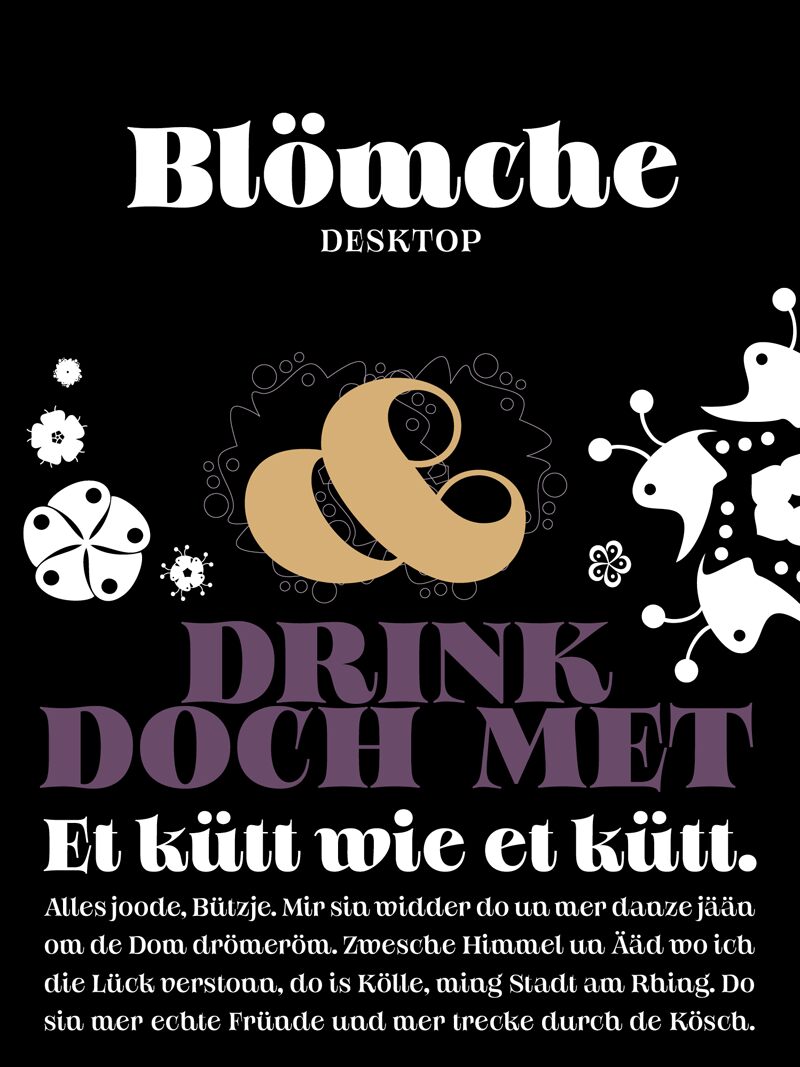
Bloemche All Caps Extra Bold Trial
Bloemche All Caps Extra Bold is a stunning serif font designed by Anita Jürgeleit. Its semi-expanded width and extra-bold weight make it perfect for headlines, titles, logos, and branding projects that require a bold statement. The all caps feature adds an extra touch of elegance to any design while maintaining readability. Whether used in print or digital media, Bloemche All Caps Extra Bold font commands attention with its unique style and sophistication. This versatile font is suitable for a range of projects from fashion magazines to luxury brand advertisements. Make your designs stand out with Bloemche All Caps Extra Bold font!